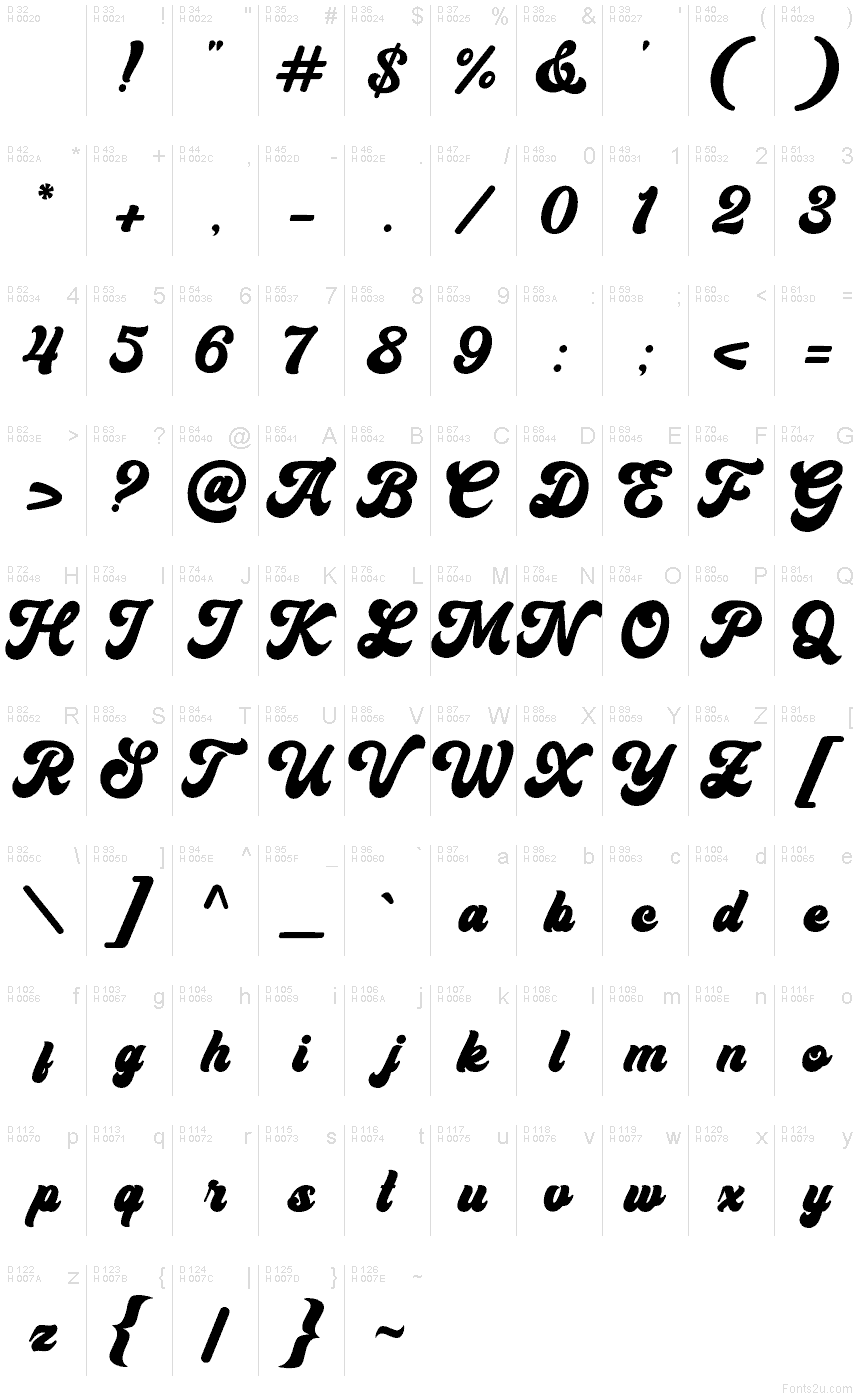
Fradle Script
Fradle Script font by Namara Creative is a free bold retro brush script font. Built with juicy, inky strokes and buttery curves, it channels sign‑painter swagger without feeling kitsch. The letters lock together with confident rhythm—rounded terminals, subtle slant, and chunky connections that read loud at a glance yet stay legible up close.
Using Fradle Script, your headlines sing on vintage logos, café menus, craft beer labels, boutique packaging, social promos, posters, and merch. Its weighty forms create instant nostalgia and a friendly, can‑do tone. For balance, pair this free font with a narrow grotesque or clean condensed sans in small caps, and give the sans a touch of tracking to let the script do the talking.